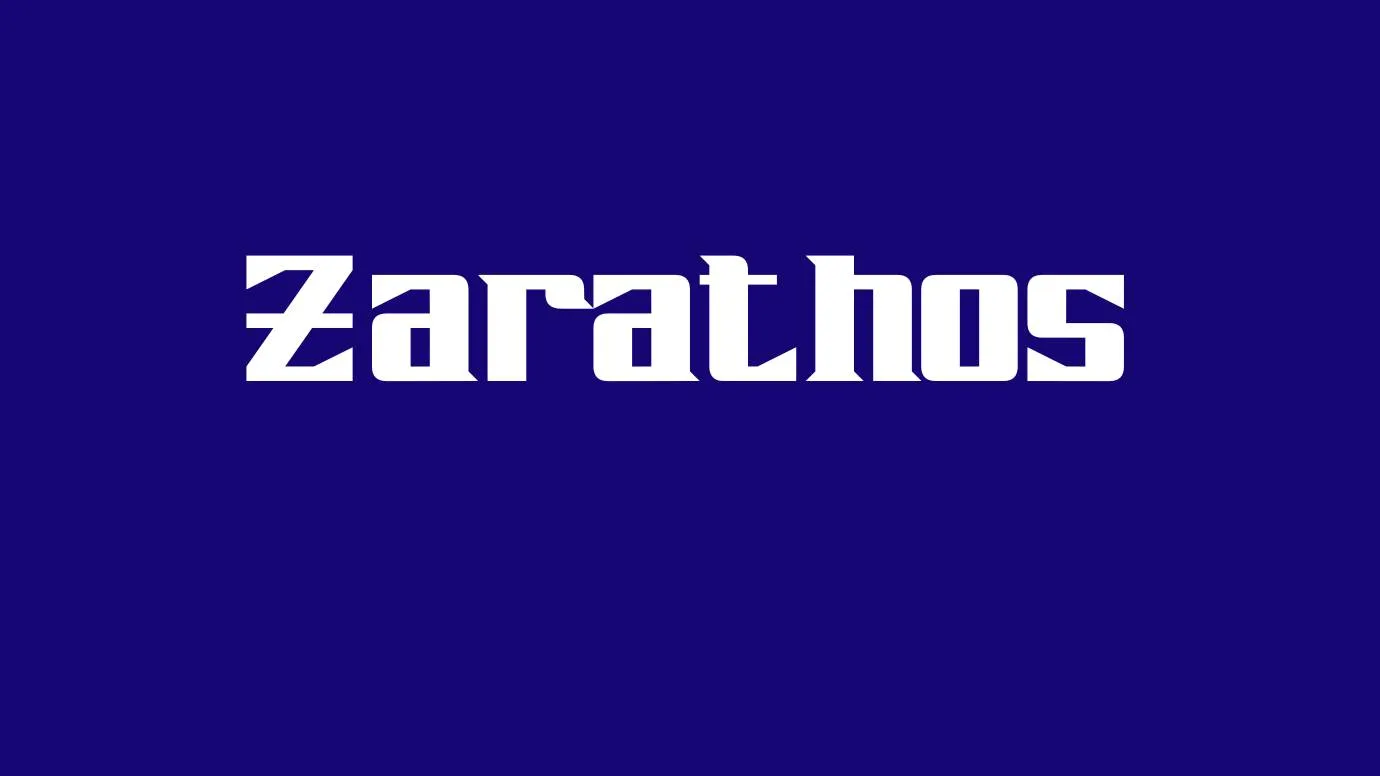
Zarathos Font Family is a very nice and attractive Gothic font. This amazing font was designed by H. Berthold and manufactured by Pixel Sagas. This stylish font was launched in 1896.
It has many different styles and weights also. This amazing font is also good for pairing with other fonts such as didact gothic font to give a more elegant and attractive look to your projects.
Zarathos Font